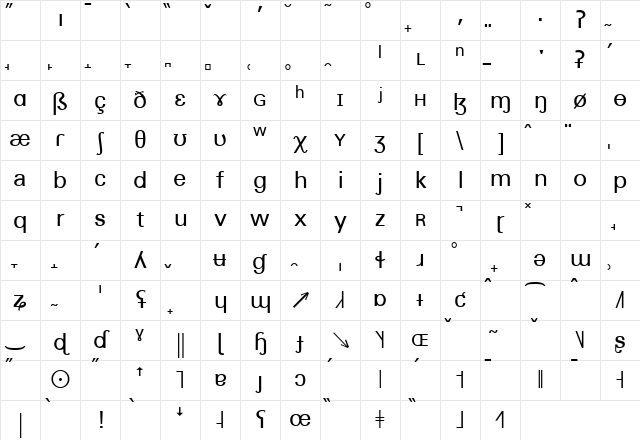
SILSophiaIPA Regular
SILSophiaIPA Family
Design Context for SILSophiaIPA
SILSophiaIPA is a composed and adaptable typeface that performs quietly and consistently across a wide range of design contexts.